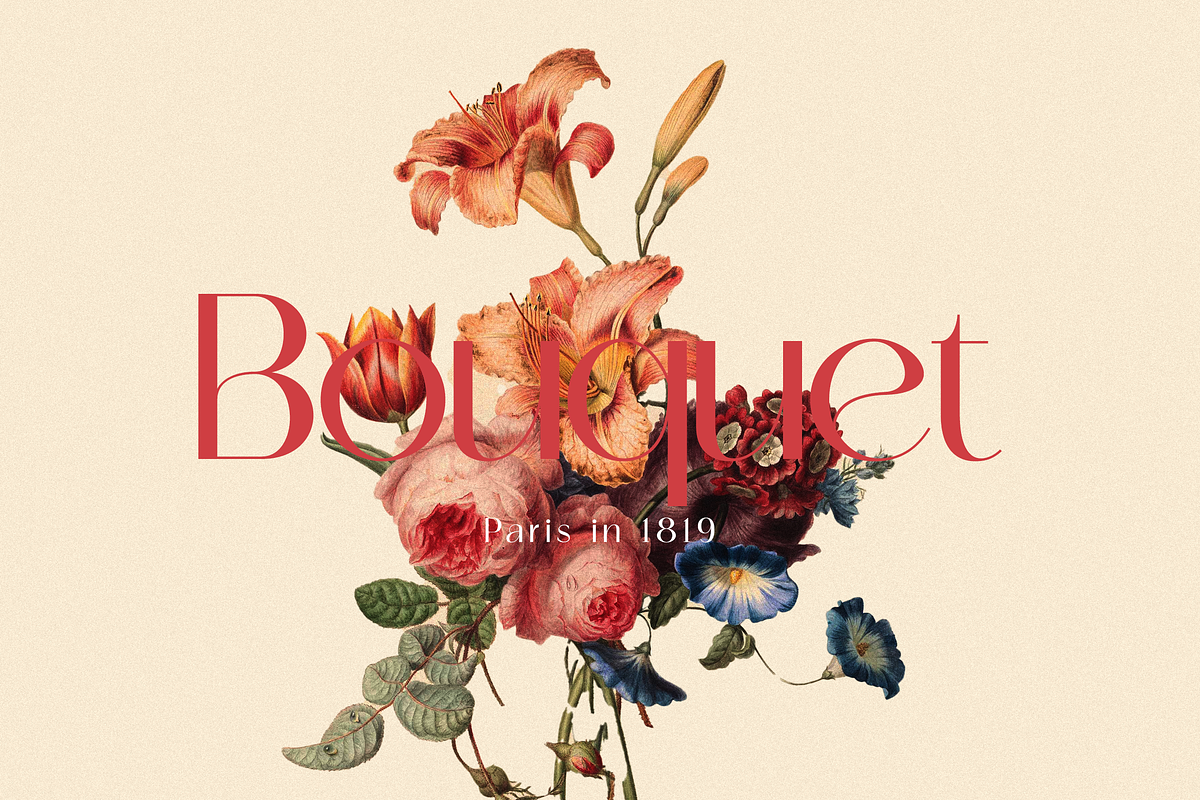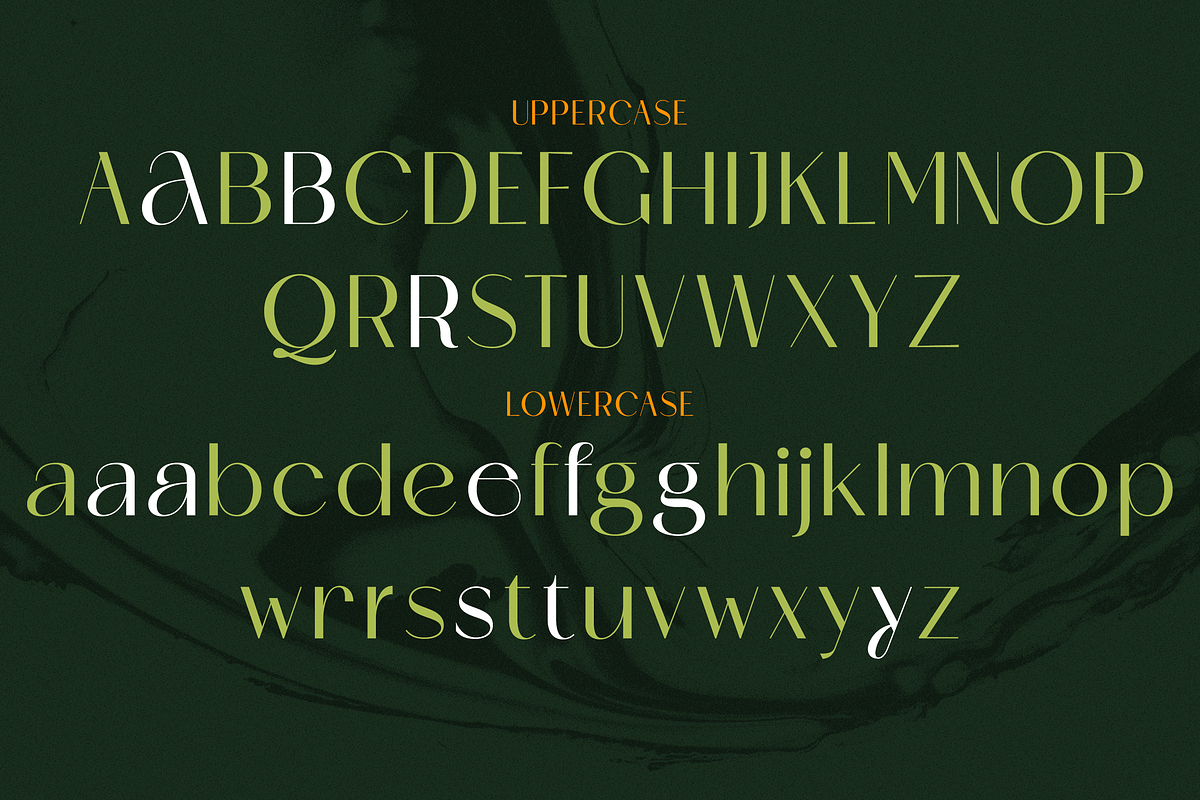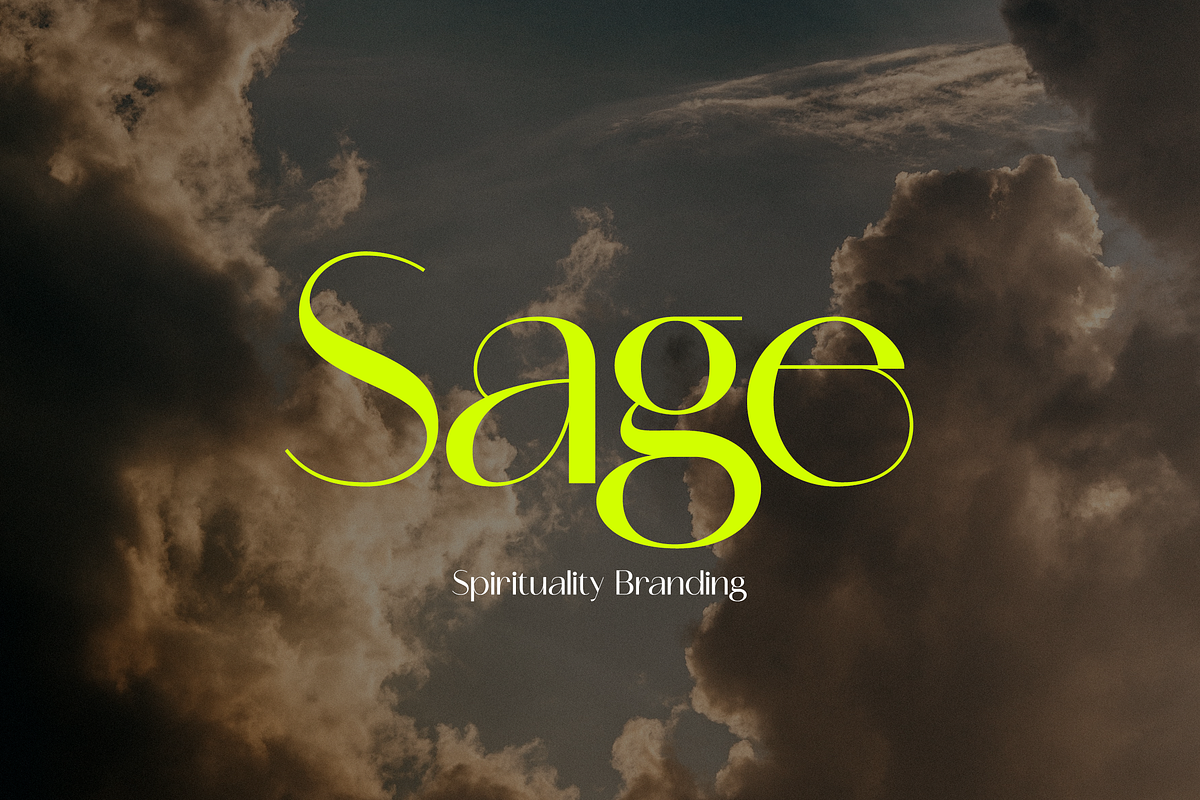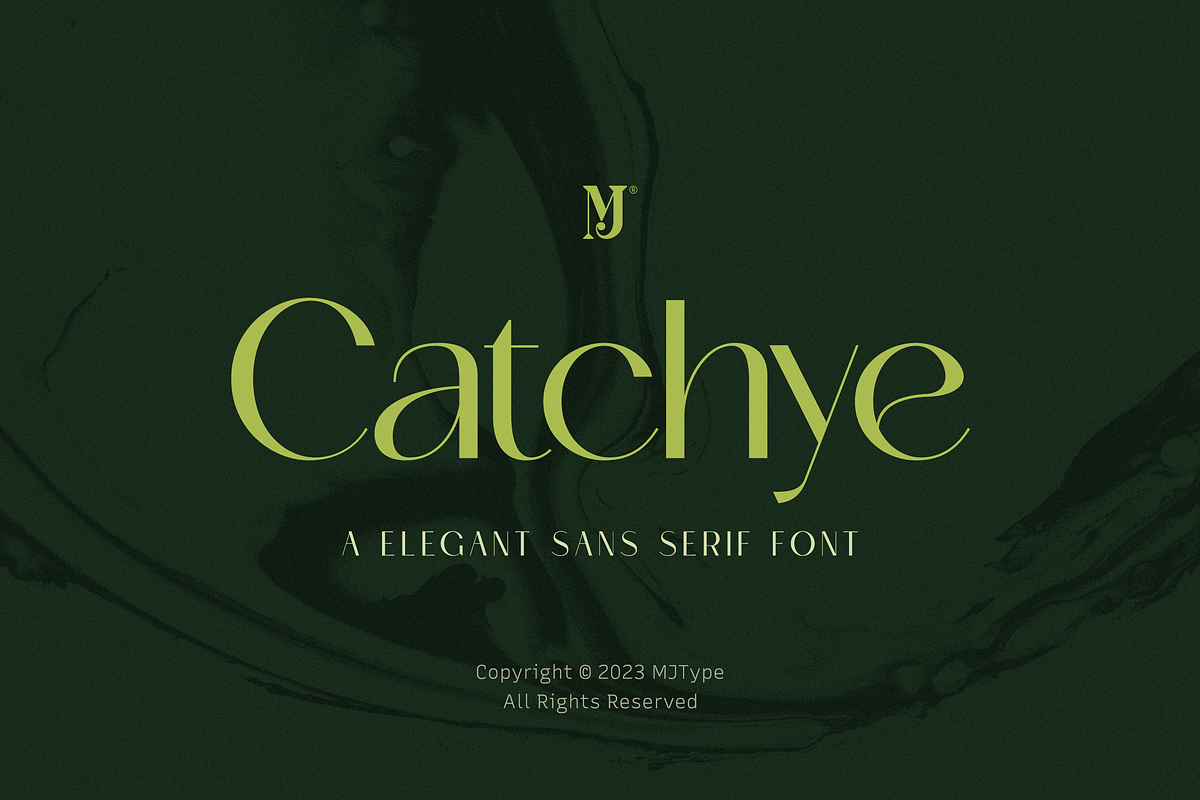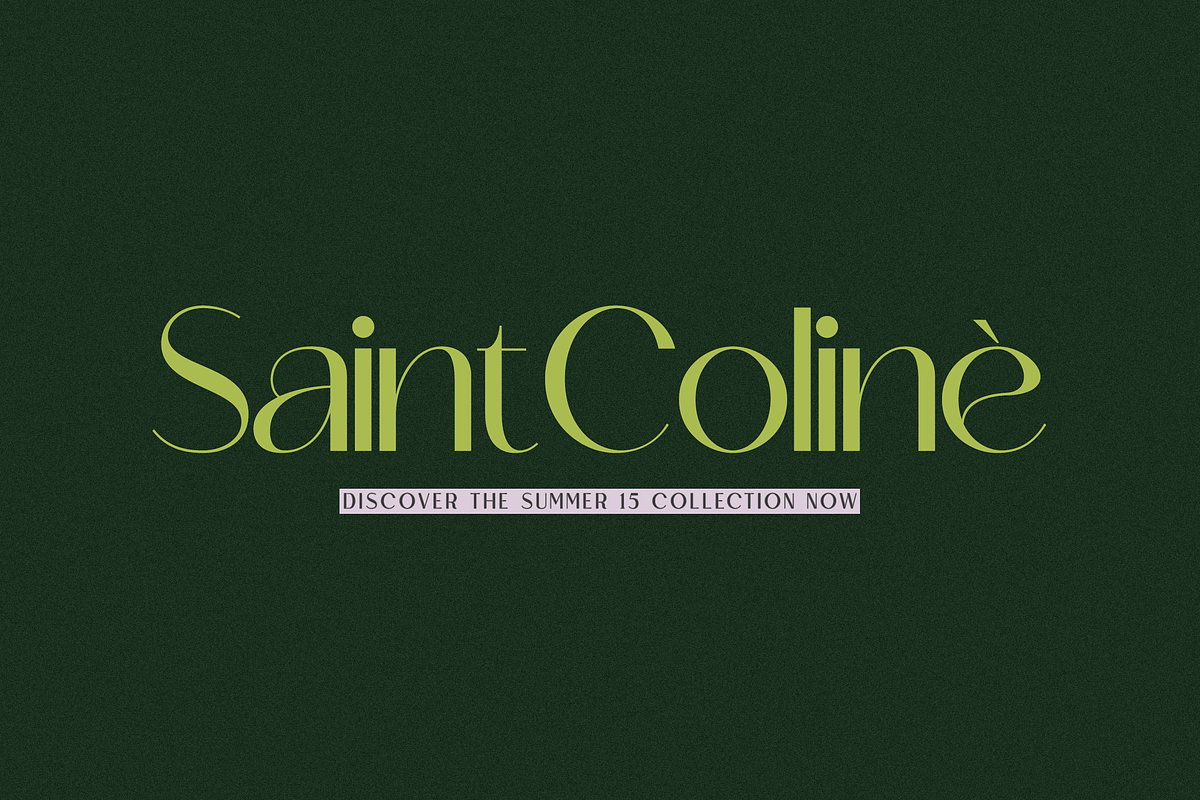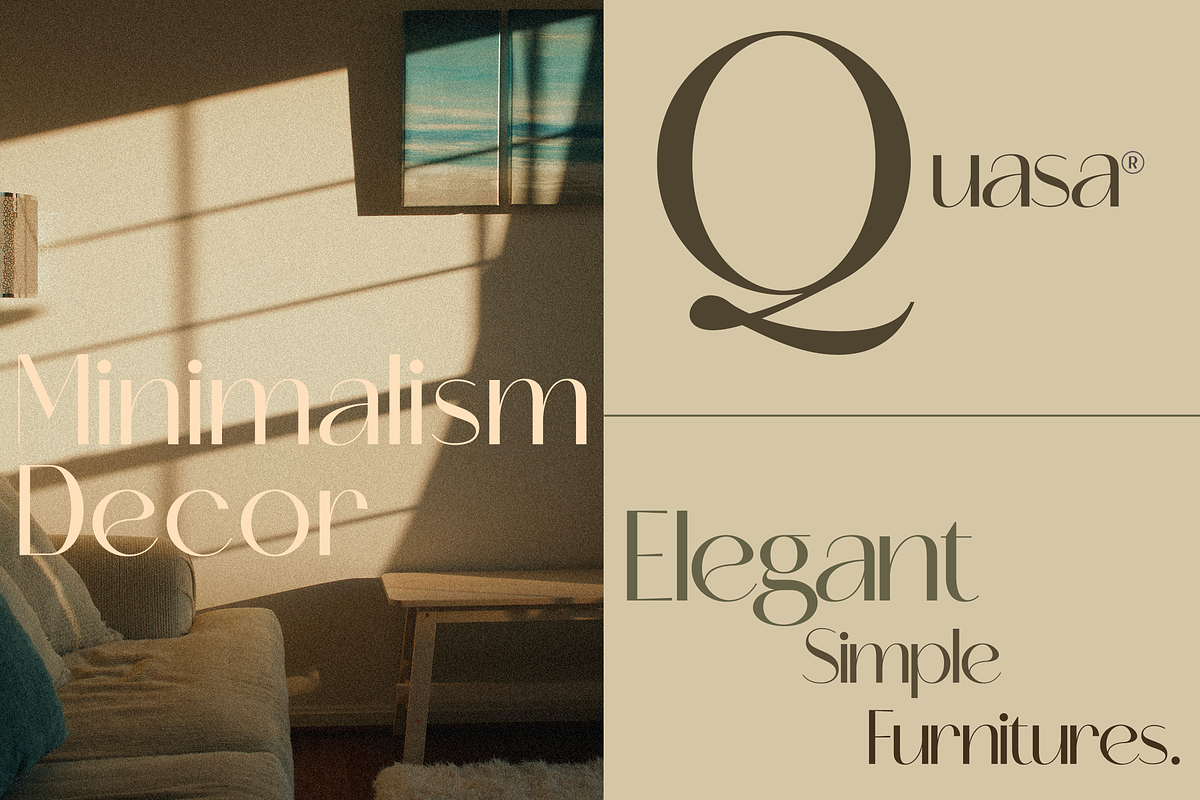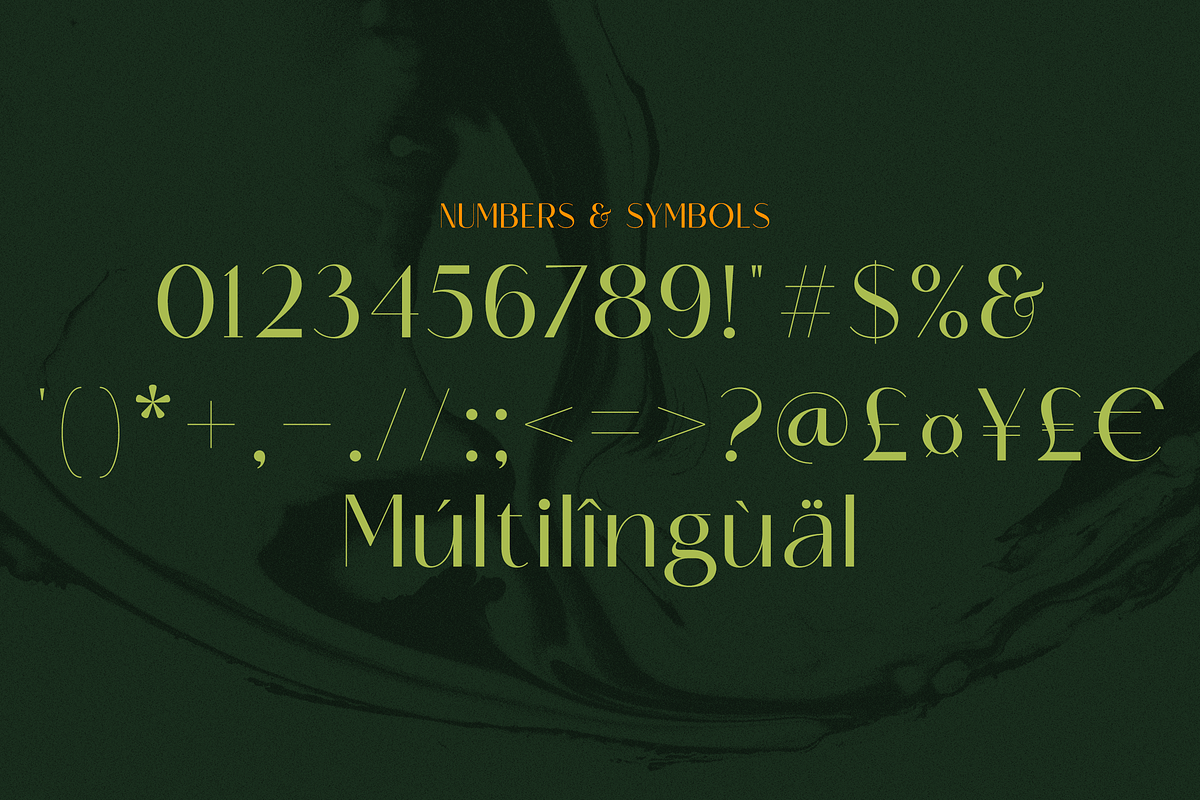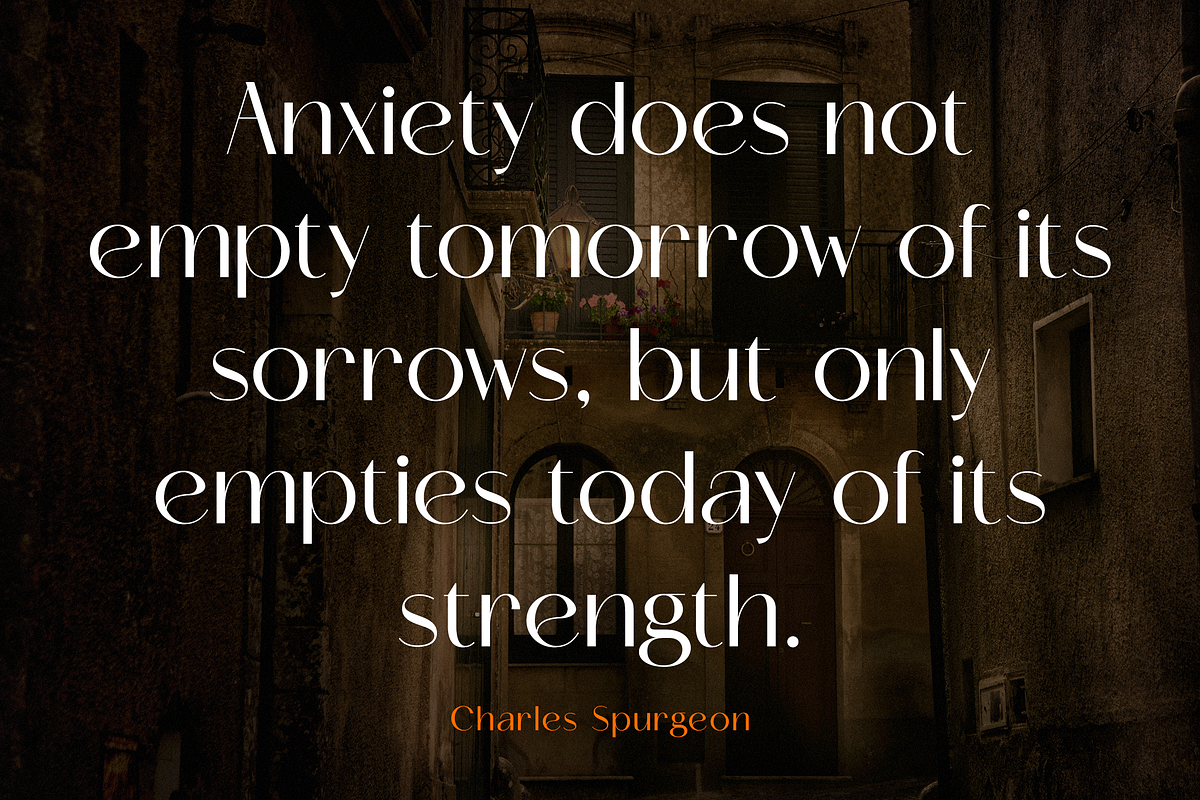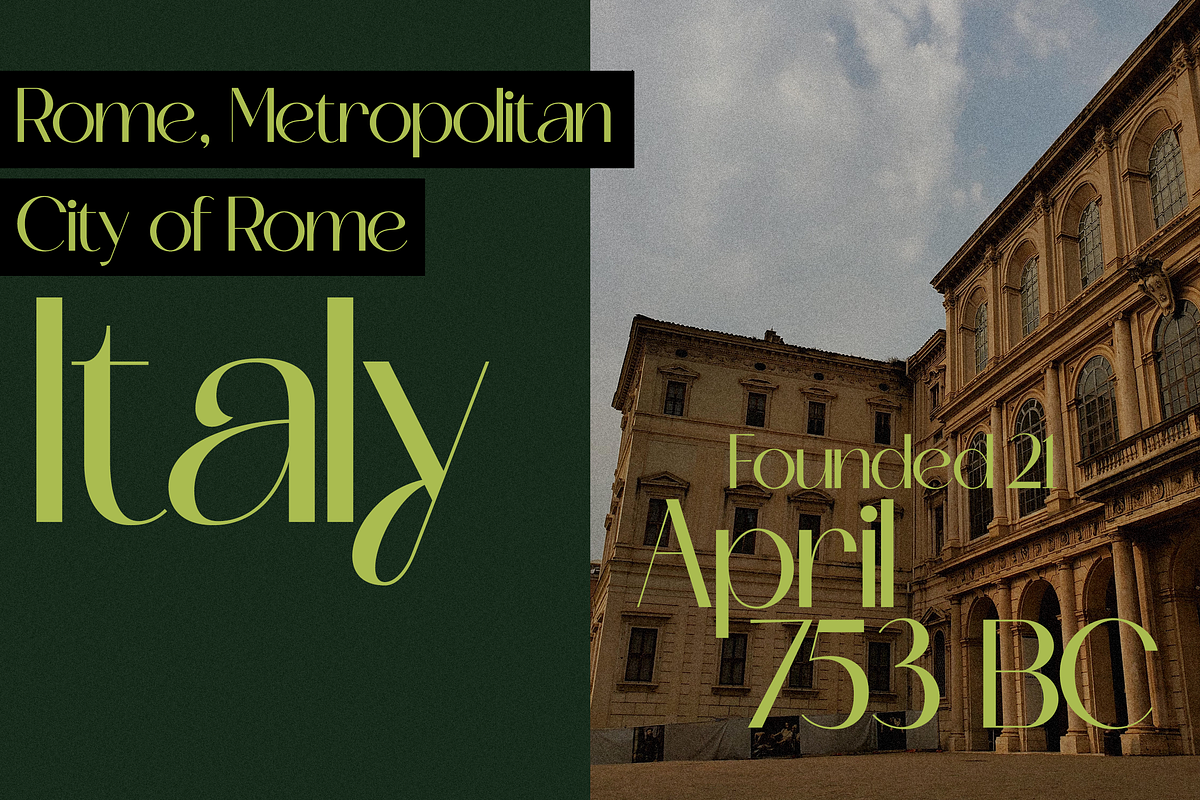
Catchye
Introducing catchye a captivating serif font that combines timeless elegance with modern flair. Its refined letterforms and balanced proportions make it perfect for logos, editorial designs, and packaging. Embrace Catchye’s allure and elevate your typographic compositions with sophistication and charm.